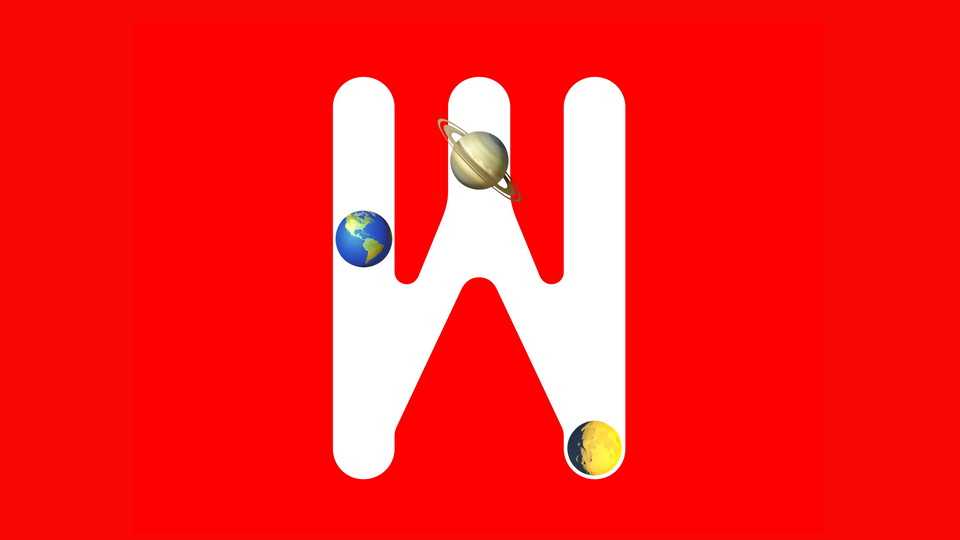
Download Synco font, a monospaced display typeface based on OCR which pays homage to VIAFONT designed by Harry L. Preble.
Designer: Ariel Martín Pérez